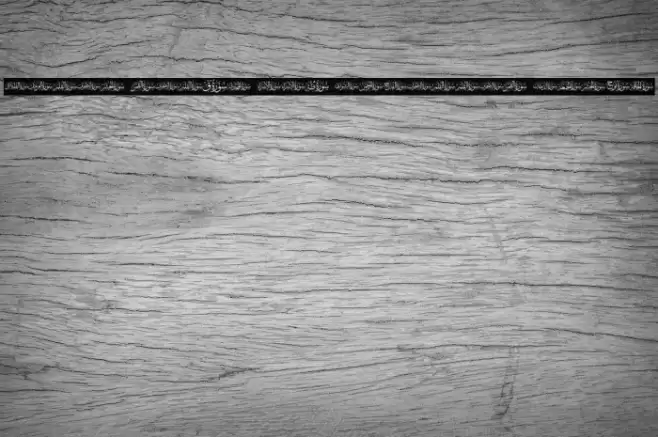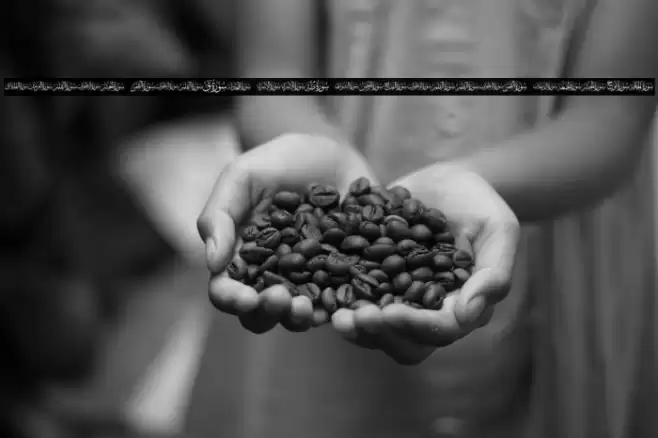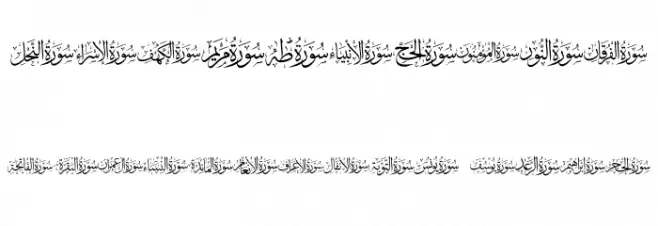
Quran karim 114 elharrak fonts Font
Quran karim 114 elharrak fonts Description
This font is a traditional Arabic script characterized by its elegant and intricate design, often used in religious texts. The script features a high level of detail with flowing, interconnected letters that create a harmonious and continuous text line. The diacritical marks are clearly defined, enhancing readability while maintaining the aesthetic appeal. The font's ornate style is suitable for formal and ceremonial contexts, reflecting a sense of reverence and tradition. The overall appearance is both sophisticated and timeless, making it ideal for use in religious and cultural publications.
An elegant and intricate traditional Arabic script ideal for religious texts from Regular fonts.
- Proposed Projects: Suitable for religious publications, cultural documents, ceremonial scripts, and traditional art projects.
- Overall Style: Classic
- Use Case: Religious texts, Cultural publications